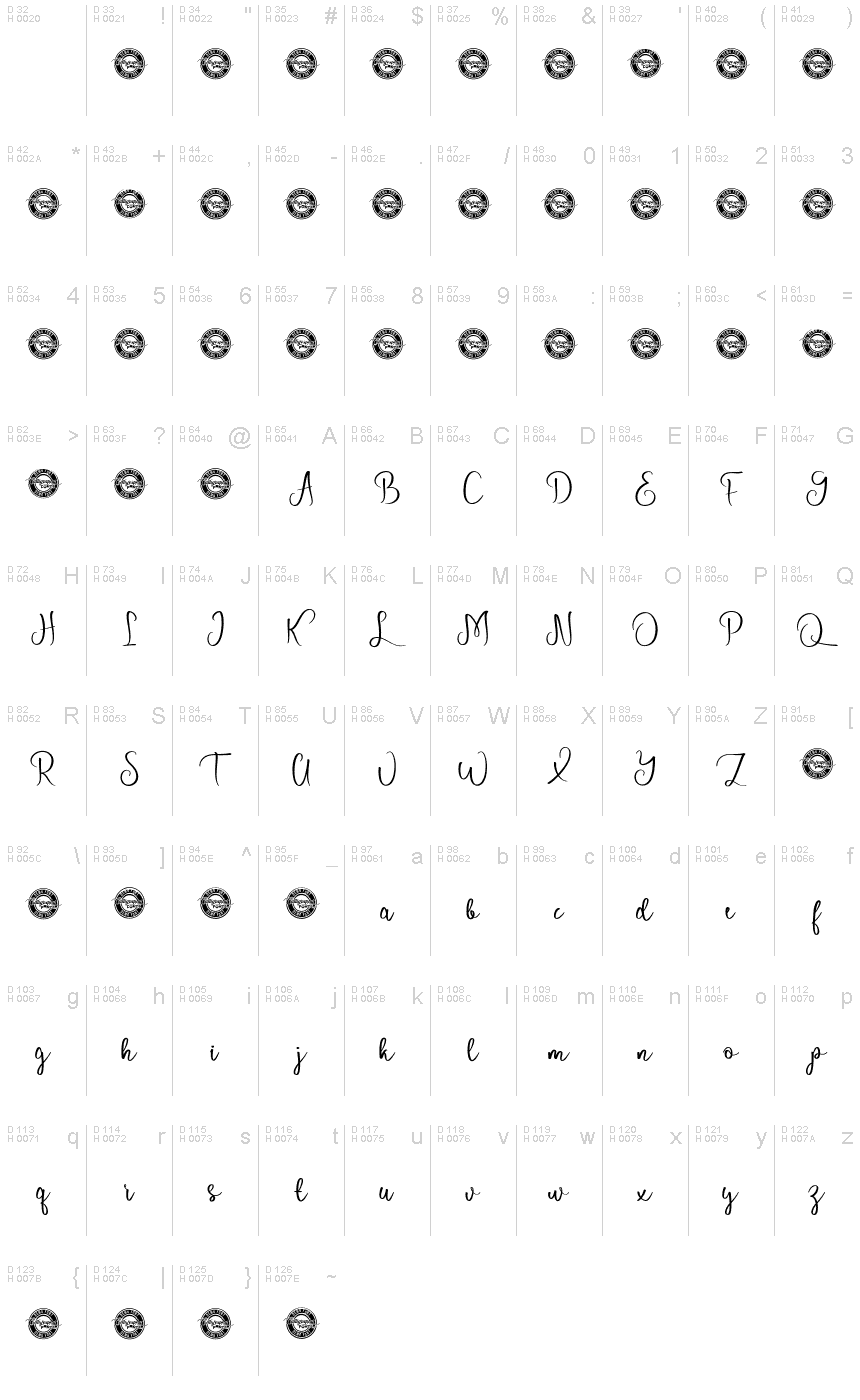
Shelbia Demo
Shelbia, the latest sensation from Calligraphy Fonts, is a light, handwritten font that's perfect for projects that require a personal touch. Its delicate lines and curves make it ideal for wedding invitations, love letters, or any project that needs a touch of elegance. But don't let its dainty appearance fool you; Shelbia also has the versatility to be used in more playful settings such as children's books or greeting cards. Whether you're creating a logo or designing packaging for your brand, this semi-bold font will add personality and charm to any project. Try it out today and see how Shelbia can elevate your designs!